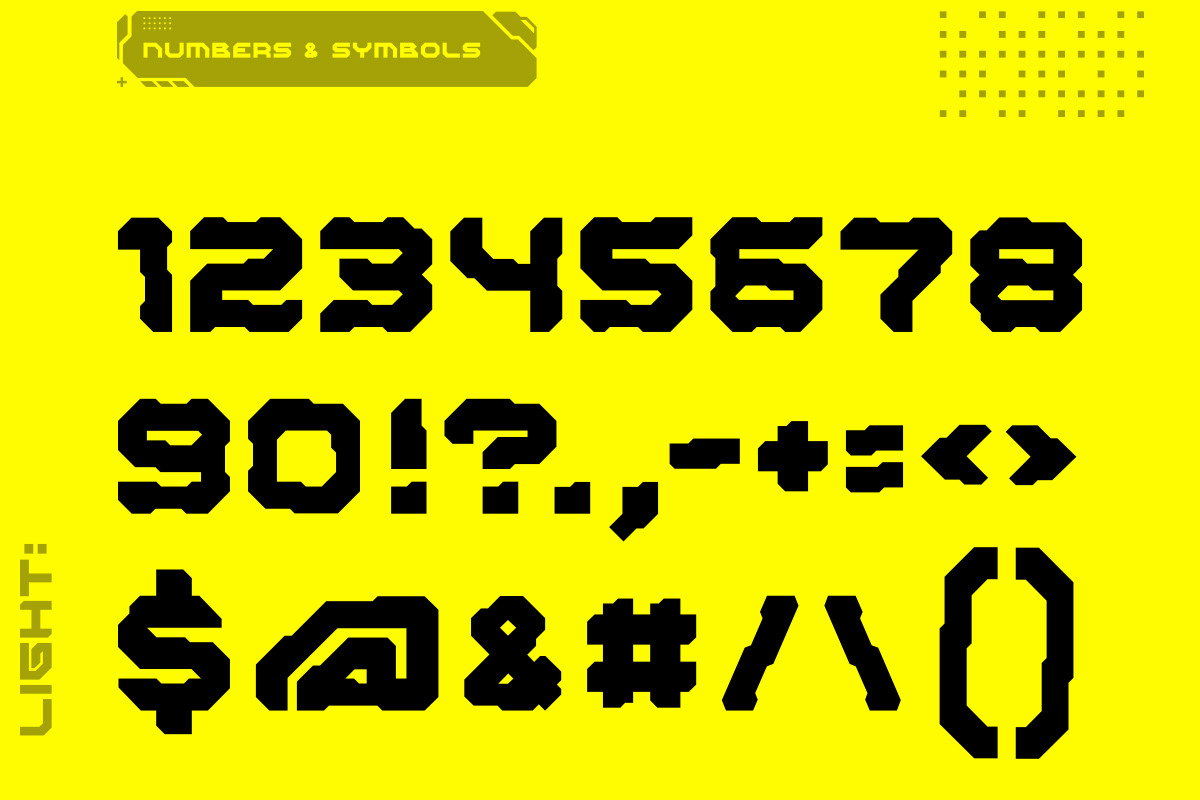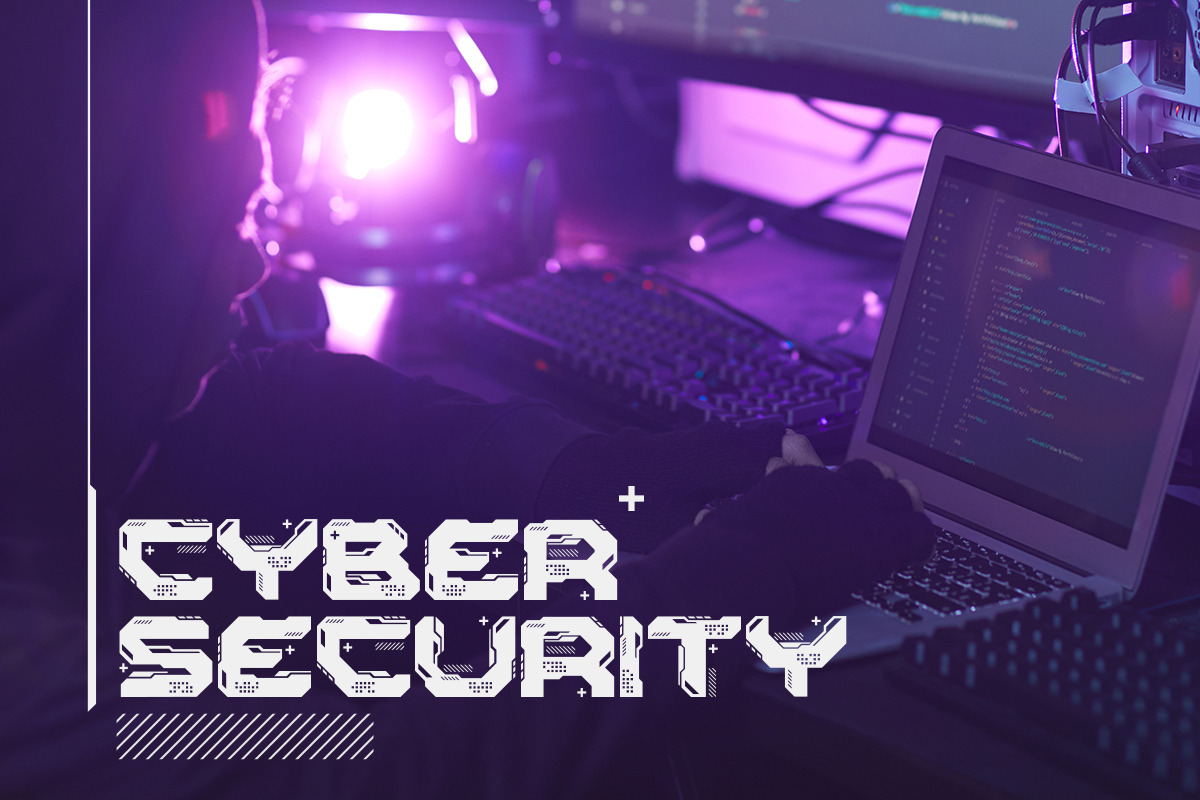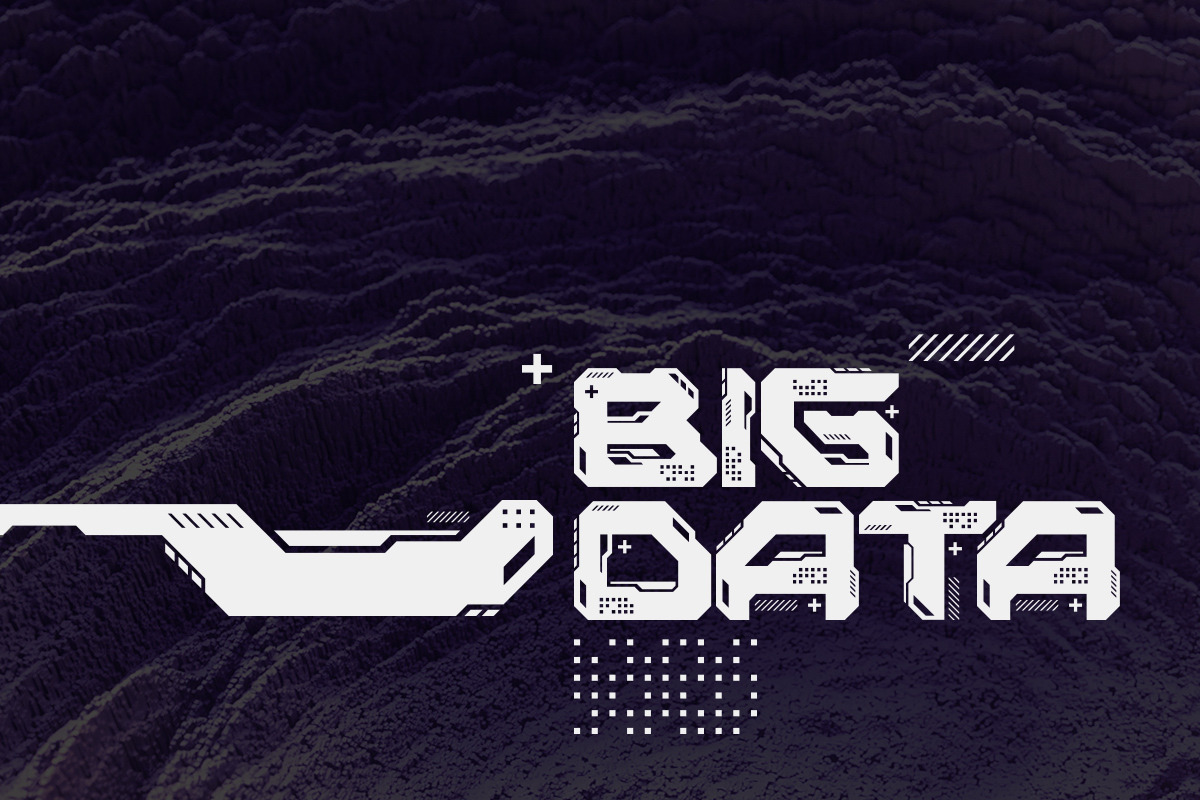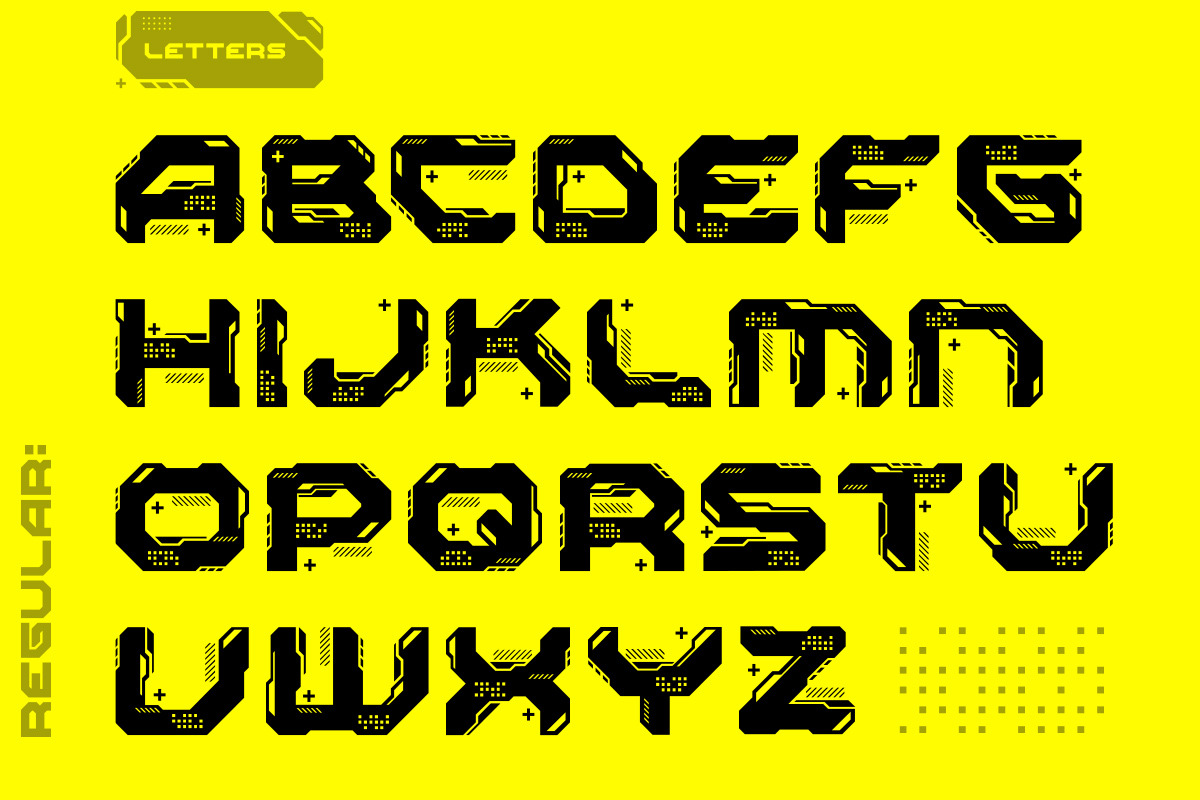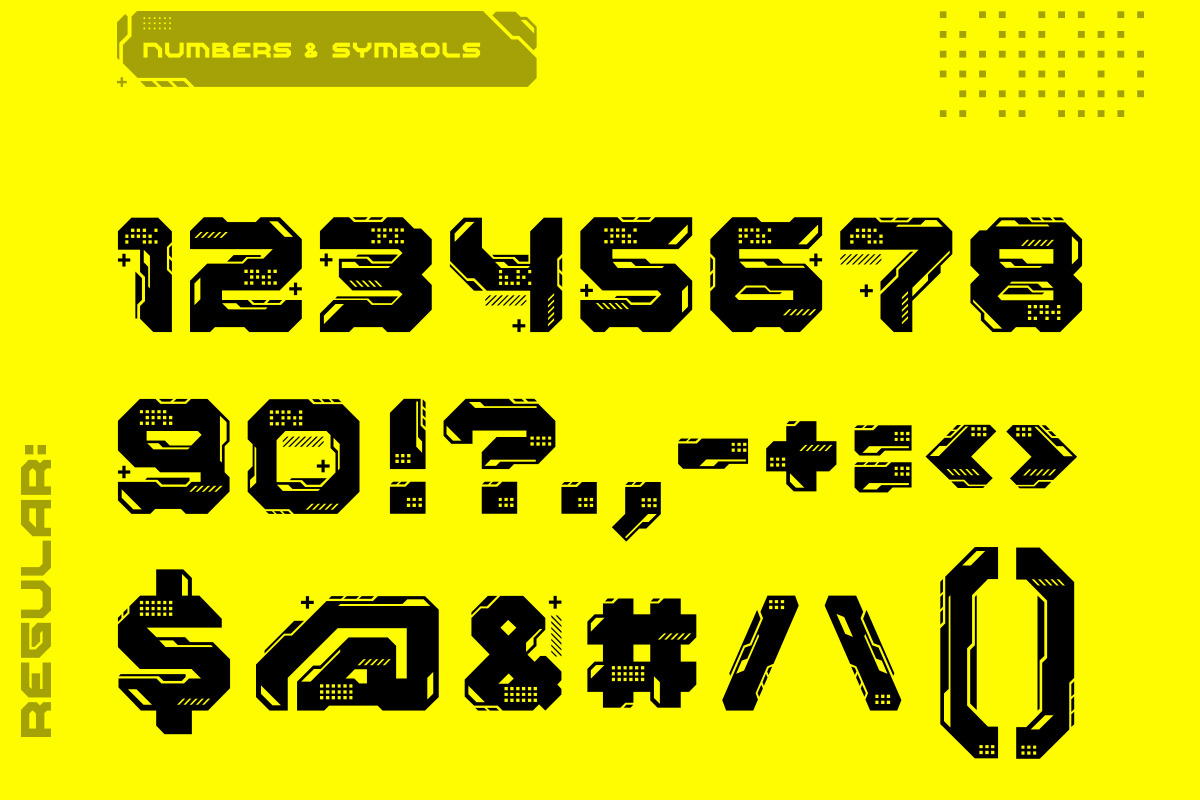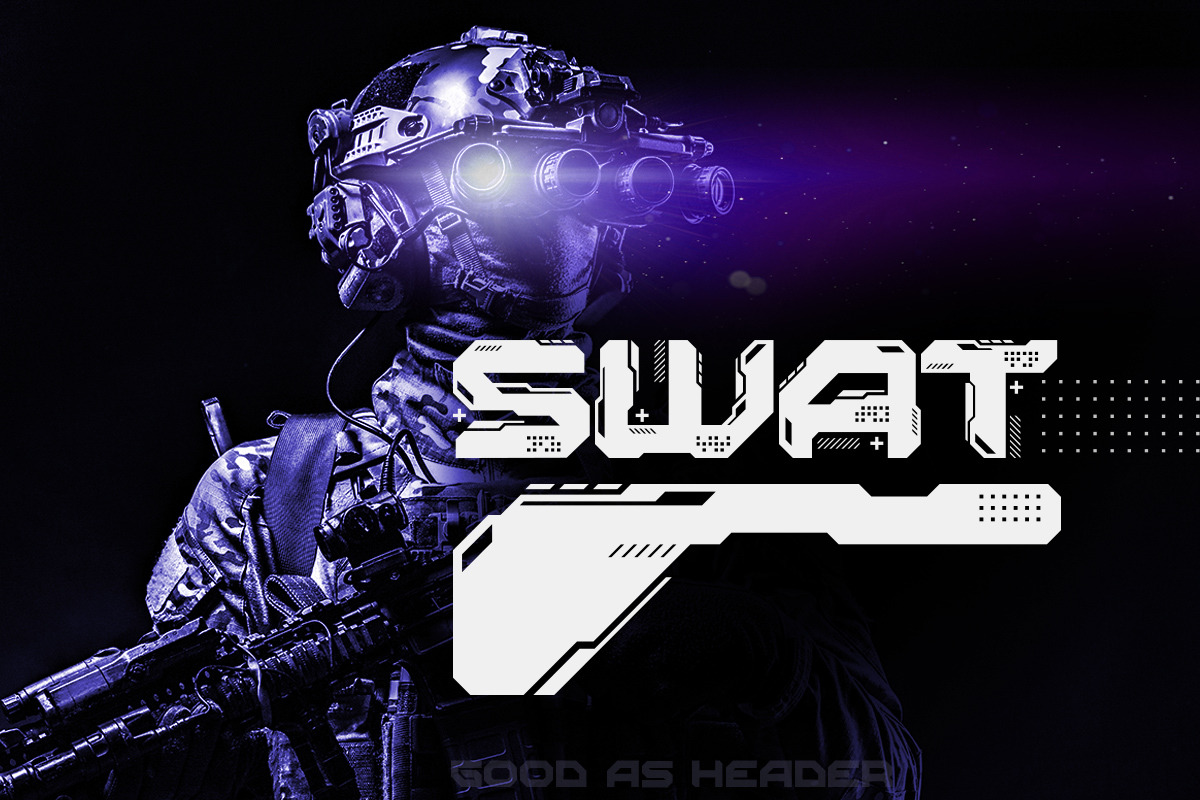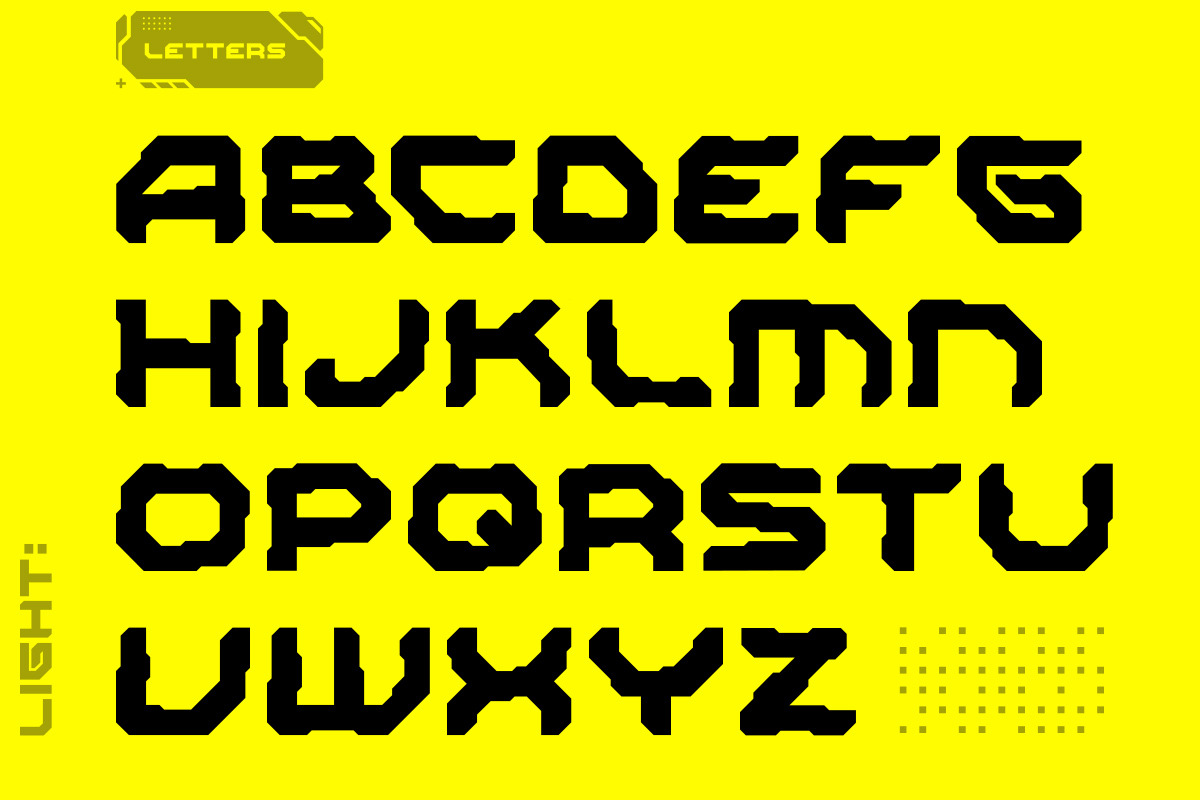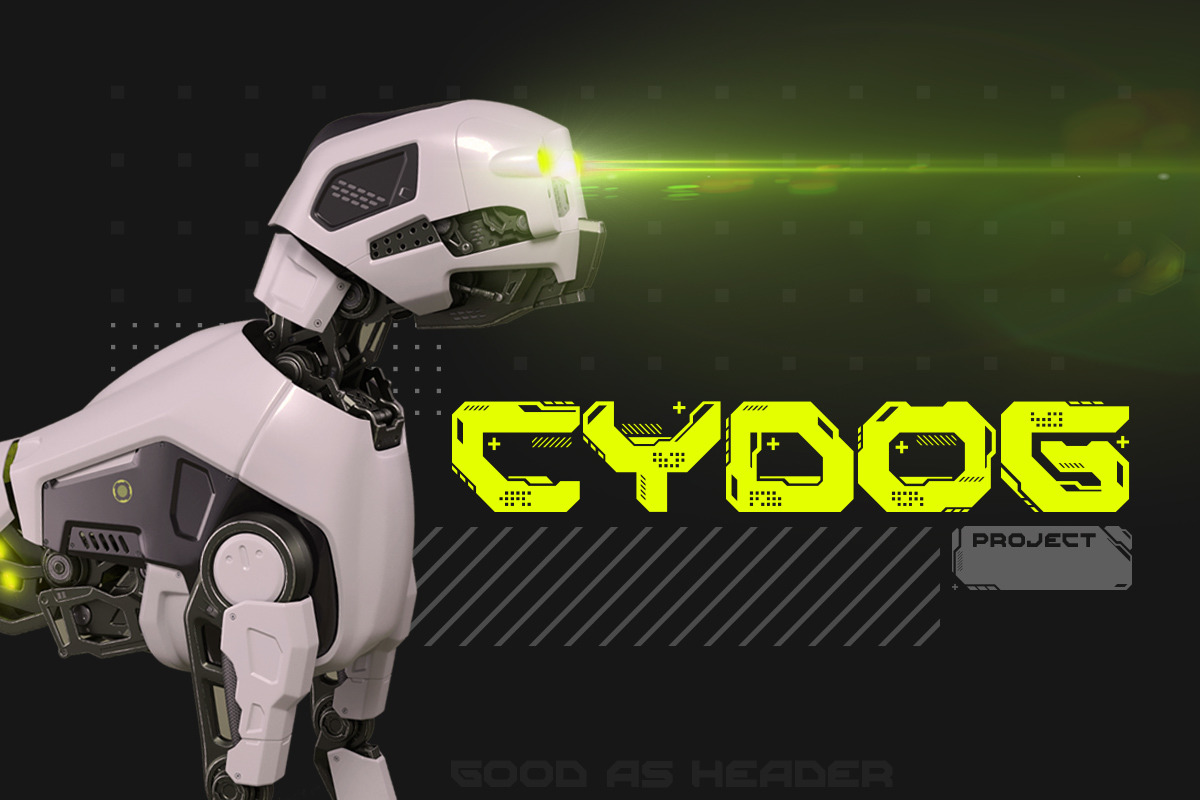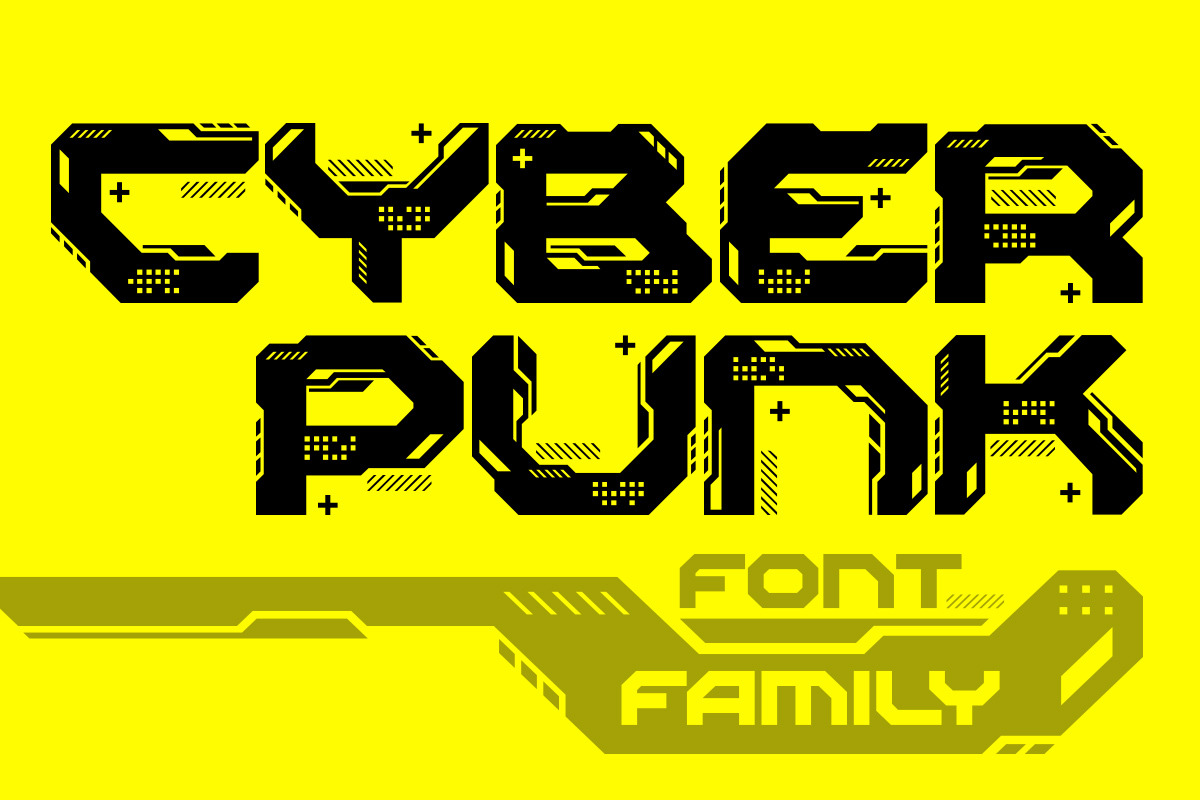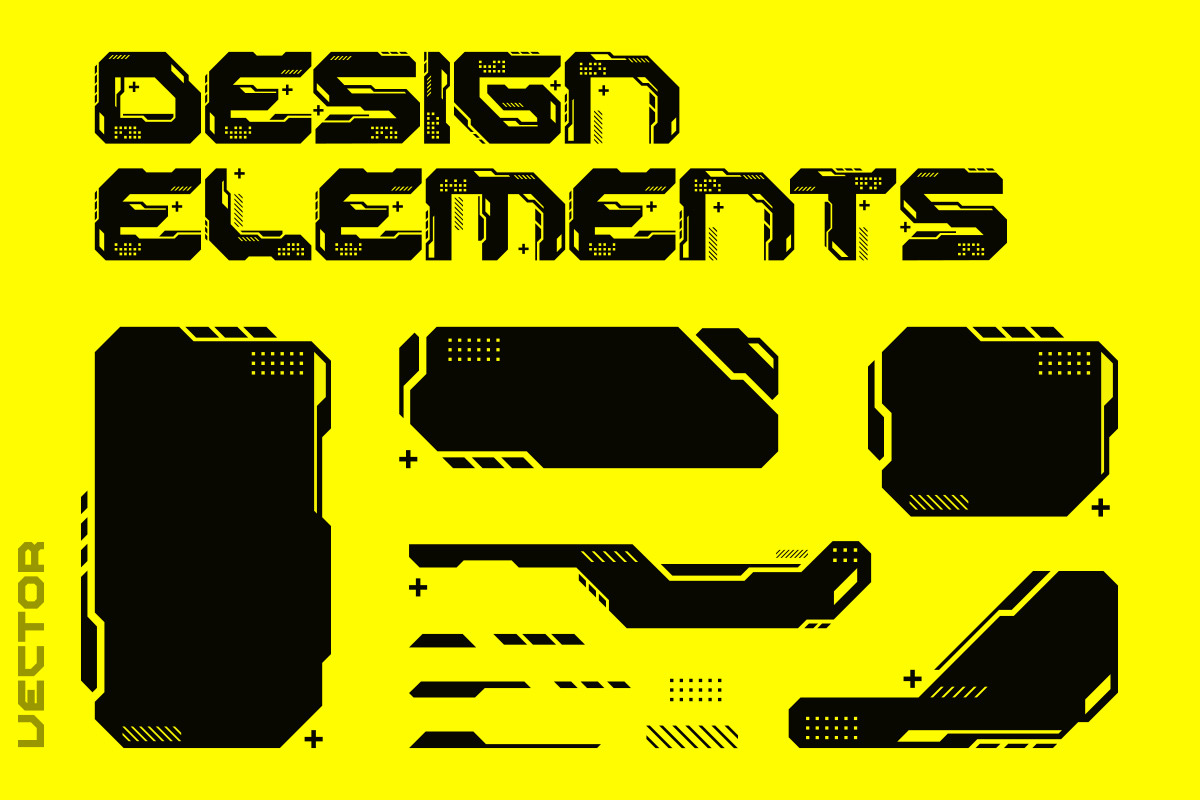
Cyberpunk Style Font
Cyberpunk Style is font which helping to create hi-tech cyberpunk and futuristic atmosphere and style. It is designed for header ready-to-use. Use it in your projects in such areas as robots&androids, cyberpunk, hi-tech, future, virtual reality, space, army, games and many others.
Family consists of two versions: Regular & Light (with and without small design elements). You can combine and mix them to get some new result.